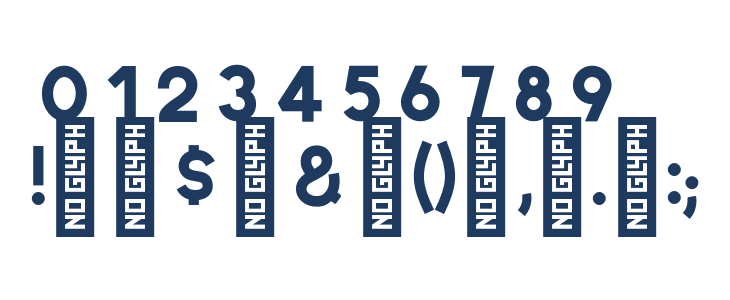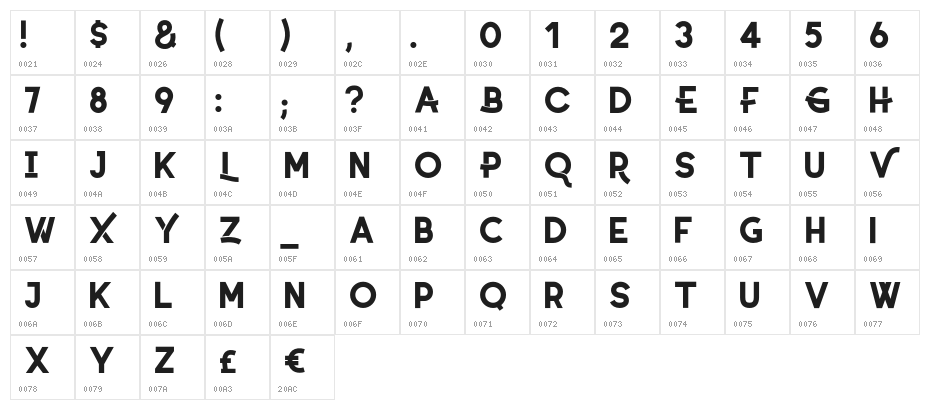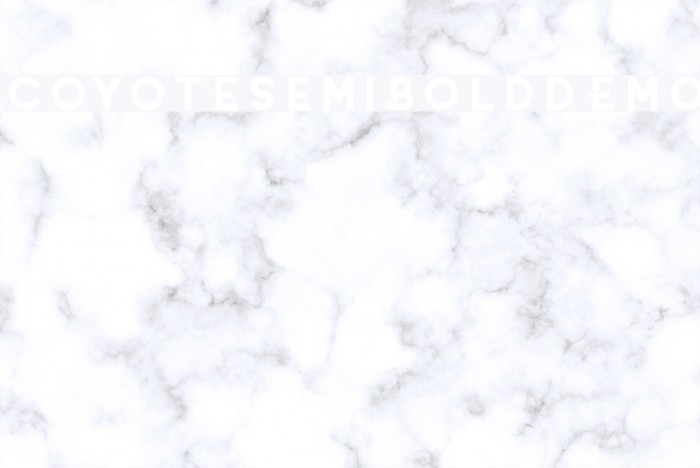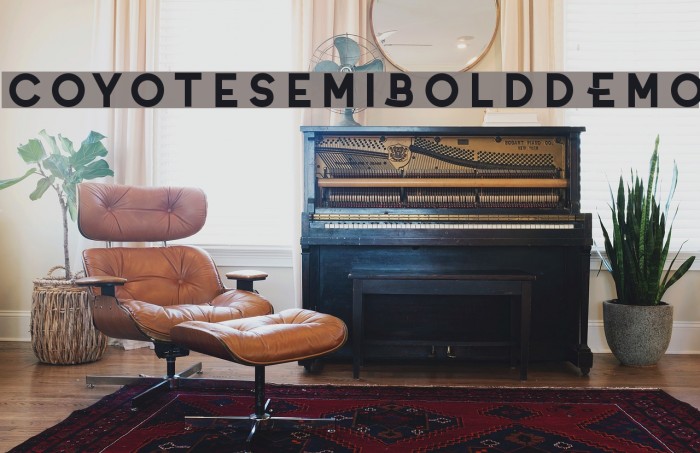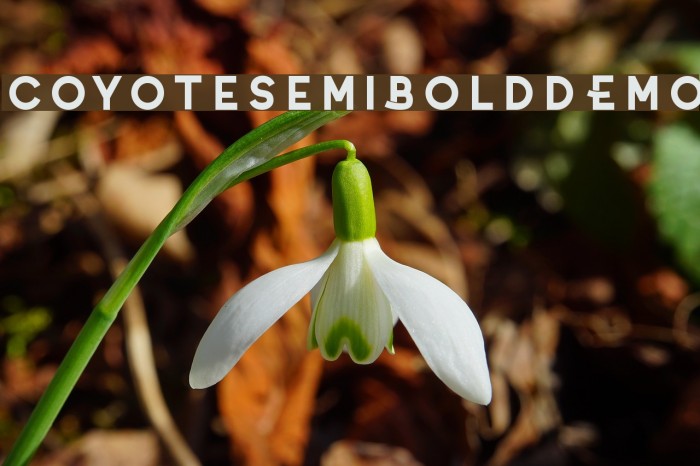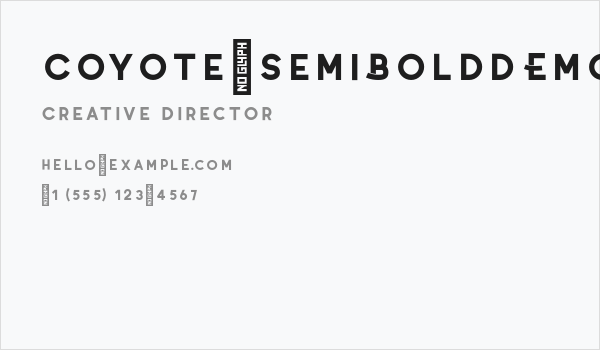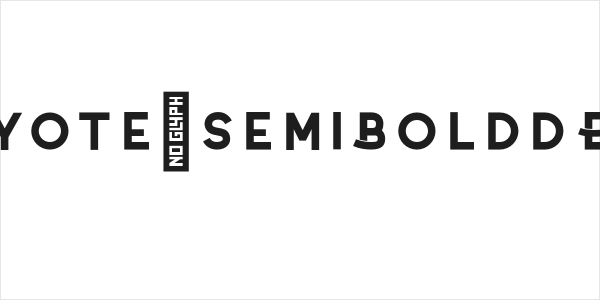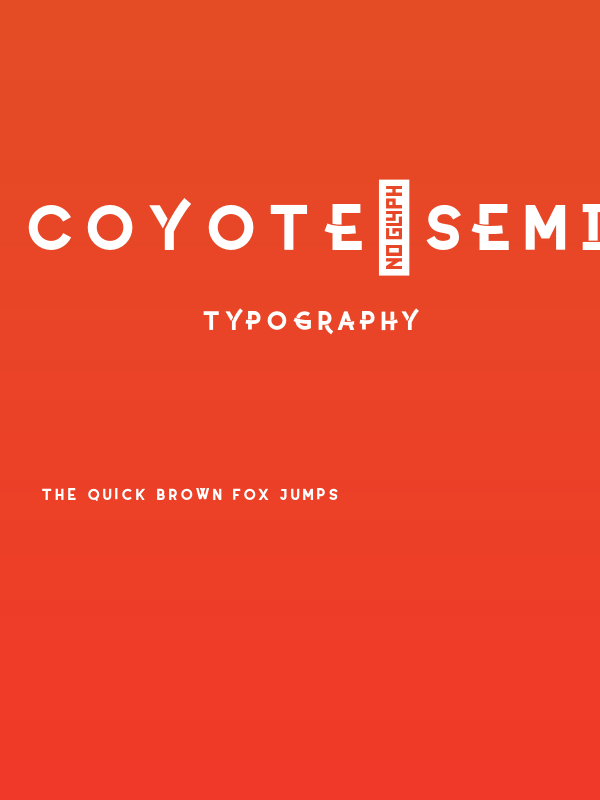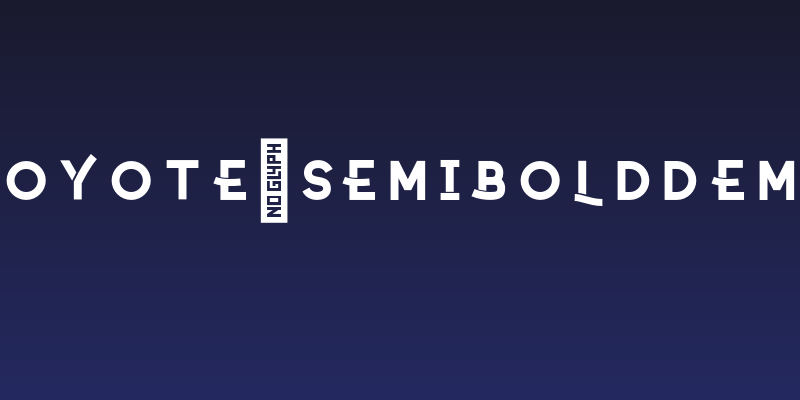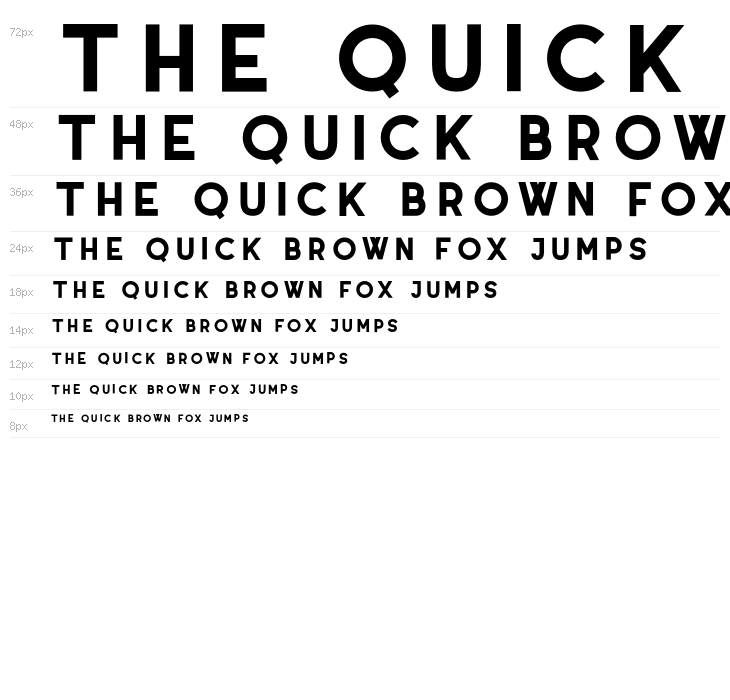
Coyote-SemiBoldDEMO Font
Coyote-SemiBoldDEMO Description
This font exhibits a bold and modern aesthetic with a geometric structure. The uppercase letters are characterized by their strong, angular lines and consistent stroke widths, giving them a robust and impactful appearance. The lowercase letters maintain a similar geometric style, offering a cohesive look across different text cases. The numerals are straightforward and align well with the overall design, ensuring readability and visual harmony. The font's style is versatile, making it suitable for various design applications where a contemporary and assertive typeface is desired.
| Proposed Projects | Ideal for branding, headlines, posters, and digital media where a strong visual presence is required. |